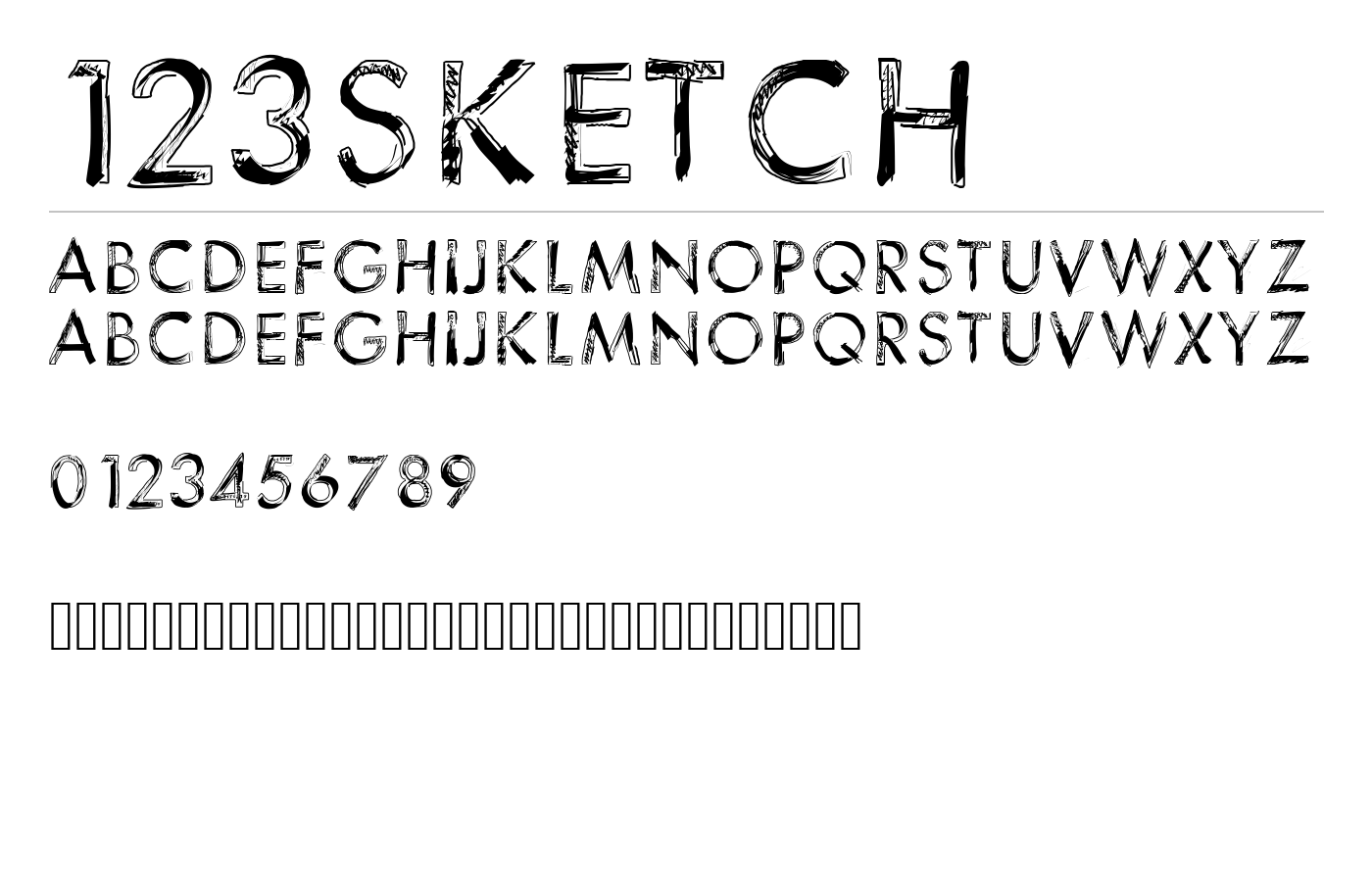
123Sketch Font is a playful and artistic sans serif typeface with a hand-drawn, sketch-like appearance. Its irregular strokes and rough texture give it a casual, creative feel that's perfect for designs needing a fun, informal touch. This font works well for posters, logos, and projects that want to convey a handcrafted or whimsical vibe.
123Sketch Font
About 123Sketch Font